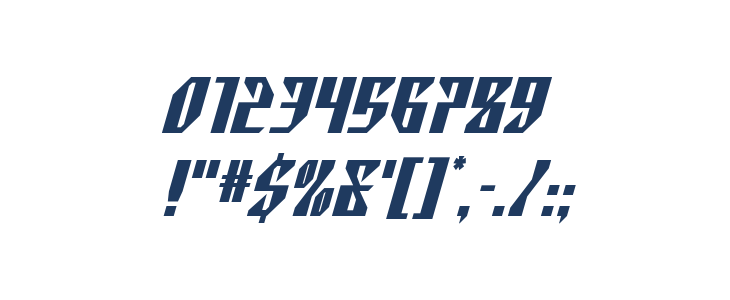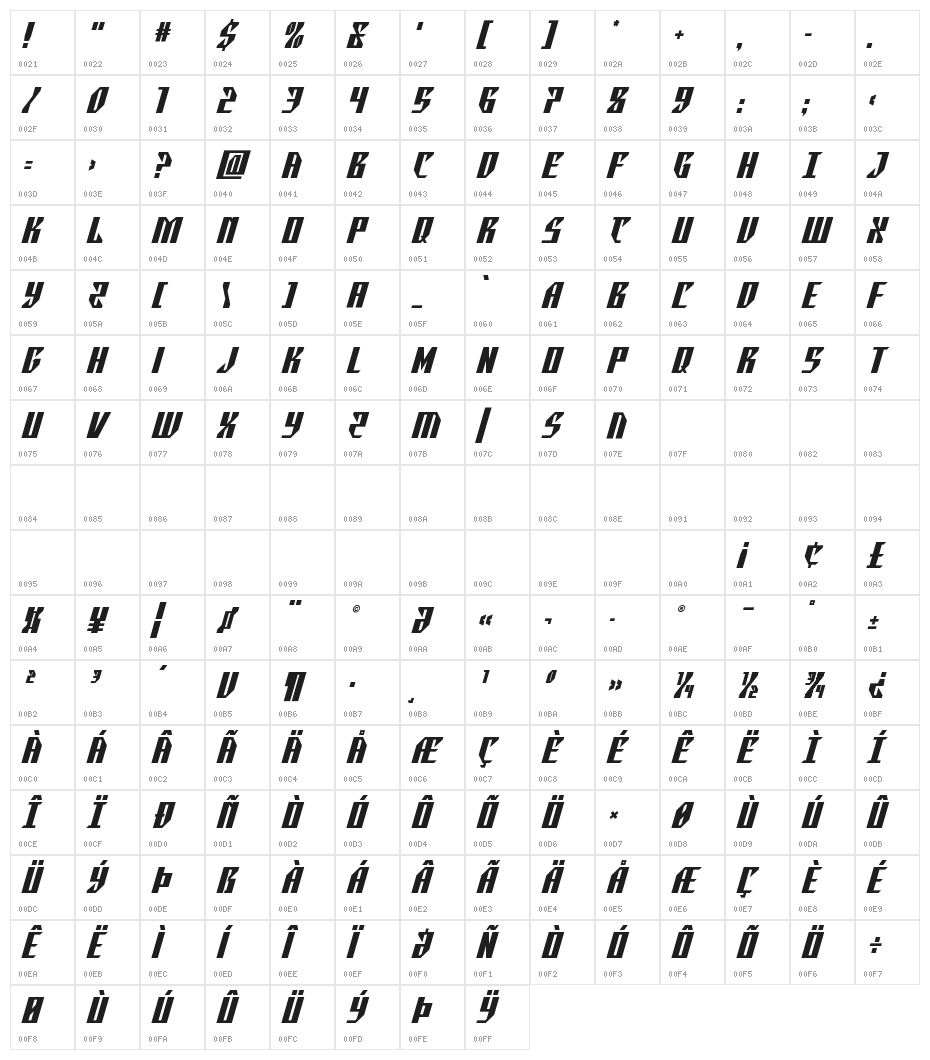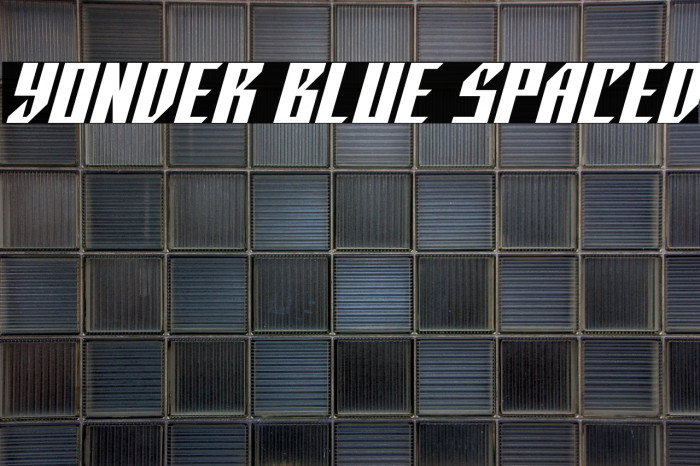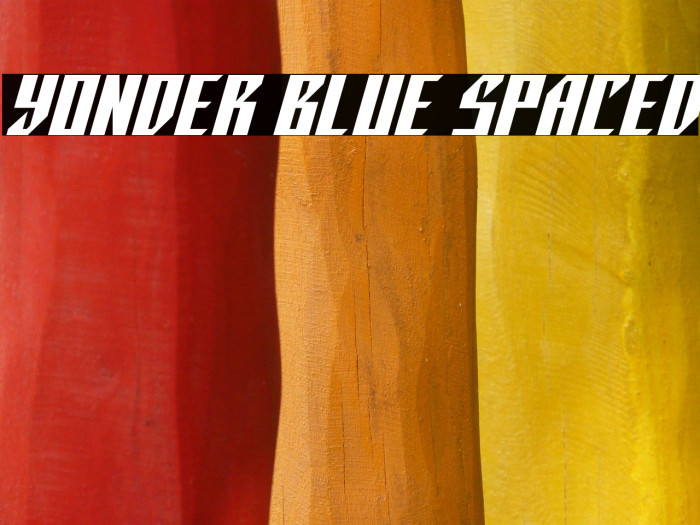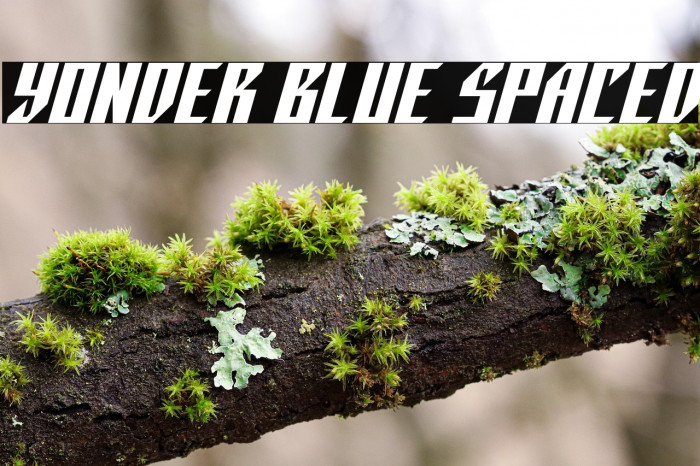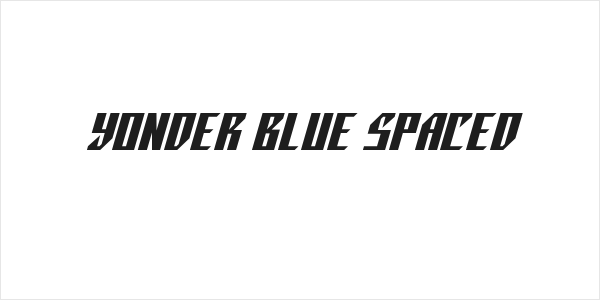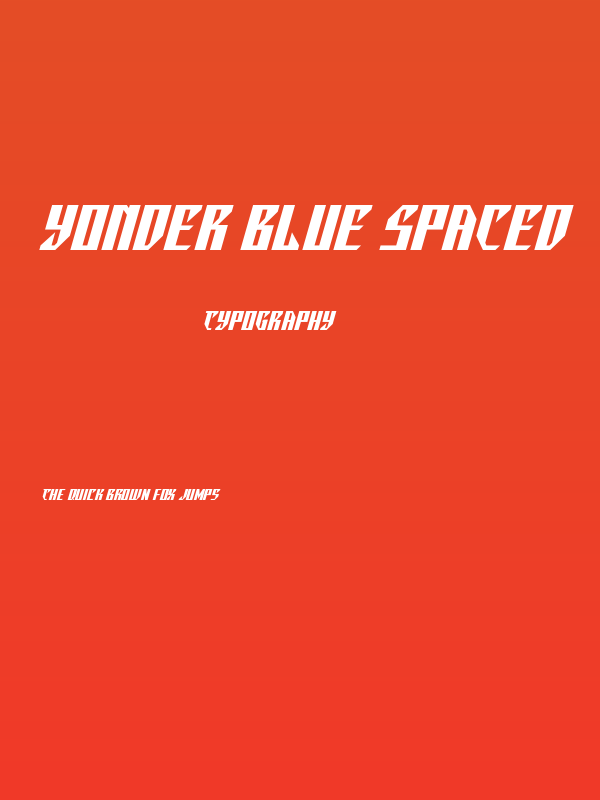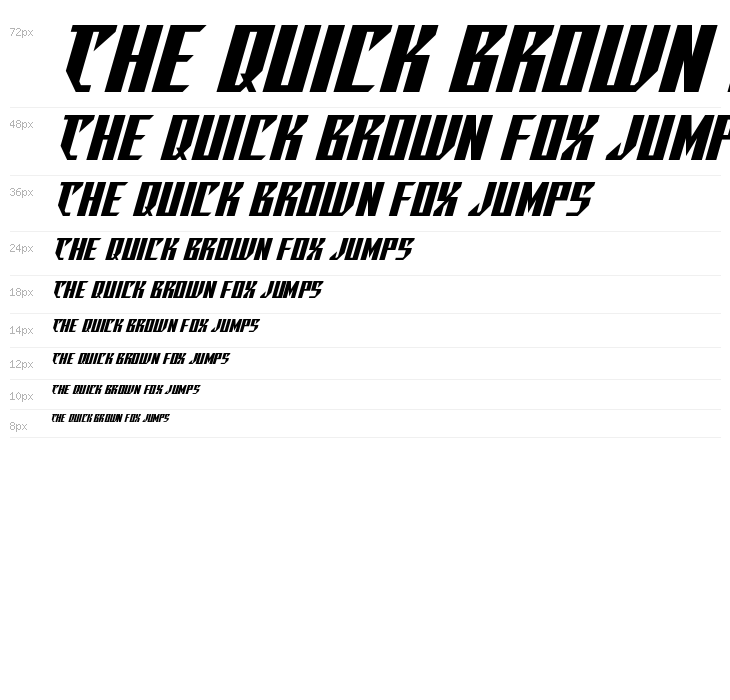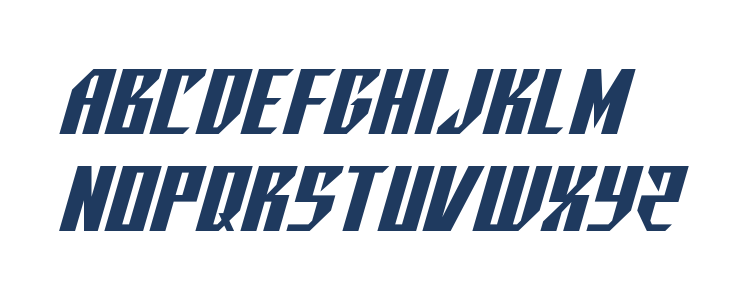
Yonder Blue Spaced Font
Yonder Blue Spaced Description
This font features a bold and dynamic design with sharp, angular edges and a forward-leaning stance, giving it a sense of motion and energy. The uppercase letters are particularly striking, with a futuristic and aggressive style that commands attention. The lowercase letters maintain the same angular aesthetic, ensuring consistency across the typeface. Numbers and special characters are designed with the same boldness and angularity, making them stand out in any context. The overall look is modern and edgy, suitable for projects that require a strong visual impact.